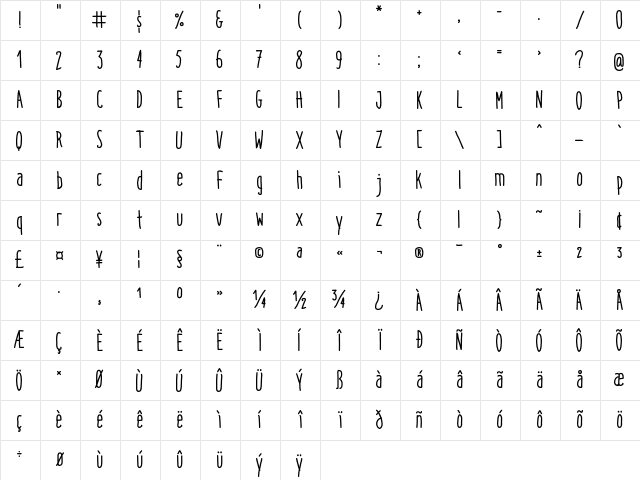
Italo Medium
Foundry: Julia Martinez Diana, Antipixel
Designer: Julia Martinez Diana, Antipixel
Italo Family
Design Context for Italo
Italo is a composed and adaptable typeface that performs quietly and consistently across a wide range of design contexts.